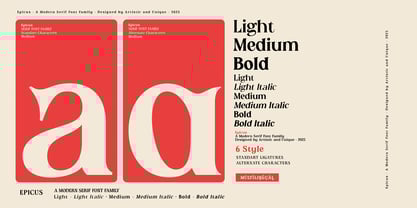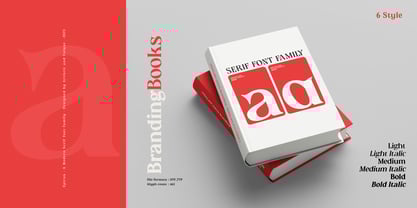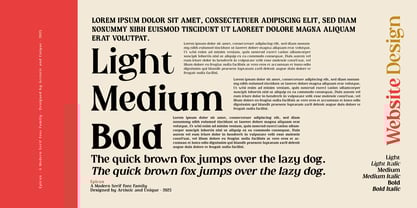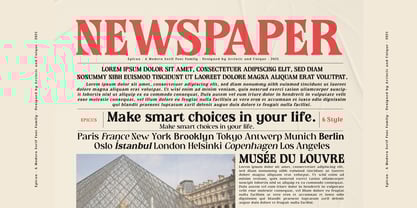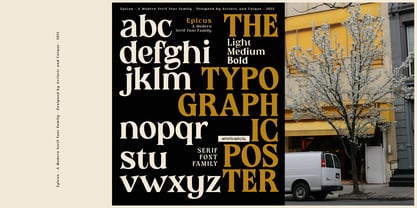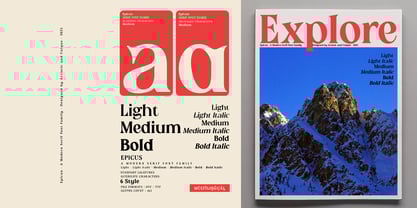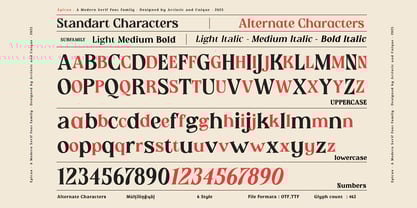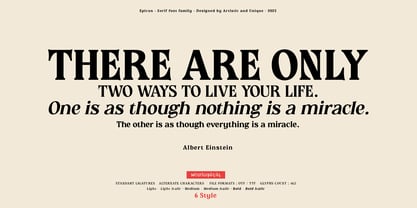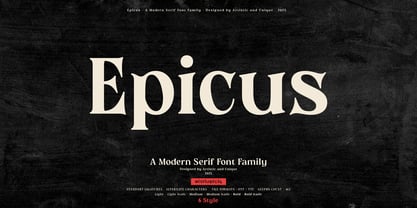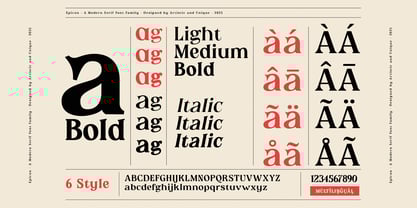
Epicus
The Epicus Font Family was designed by Osman Taner Kucukgenc and published by Artisticandunique. Epicus contains 6 styles and family package options. More about this family
Epicus - Serif font family - 6 Styles - Multilingual supports.
Epicus is a stylistic and powerful serif font family with different alternative type designs. You will have the opportunity to enrich the content of your projects with alternative characters.
This font comes with multi-language support and 6 styles. It has an elegant structure that can be effective in the development of your projects.
According to the purpose of use in typographic compositions that you will create with the aesthetic structure of alternative characters; You can enrich your titles in books or magazines, and your logos in branding.
You can take advantage of the elegant structure of standard characters in your plain texts.
Especially for editorials, magazines, books, branding, logo design, web design, headlines, movie titles etc.
With this font you can create your unique designs.